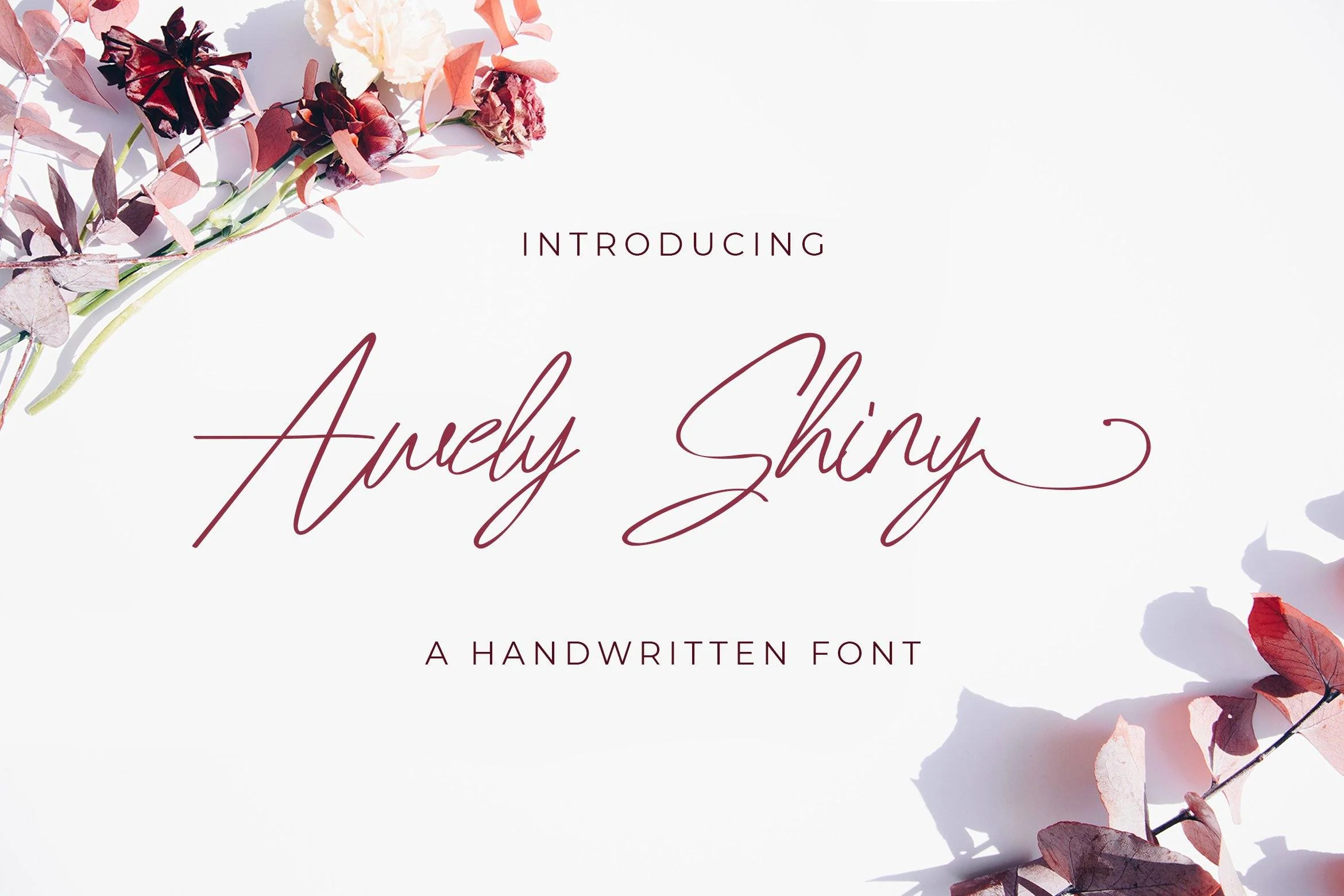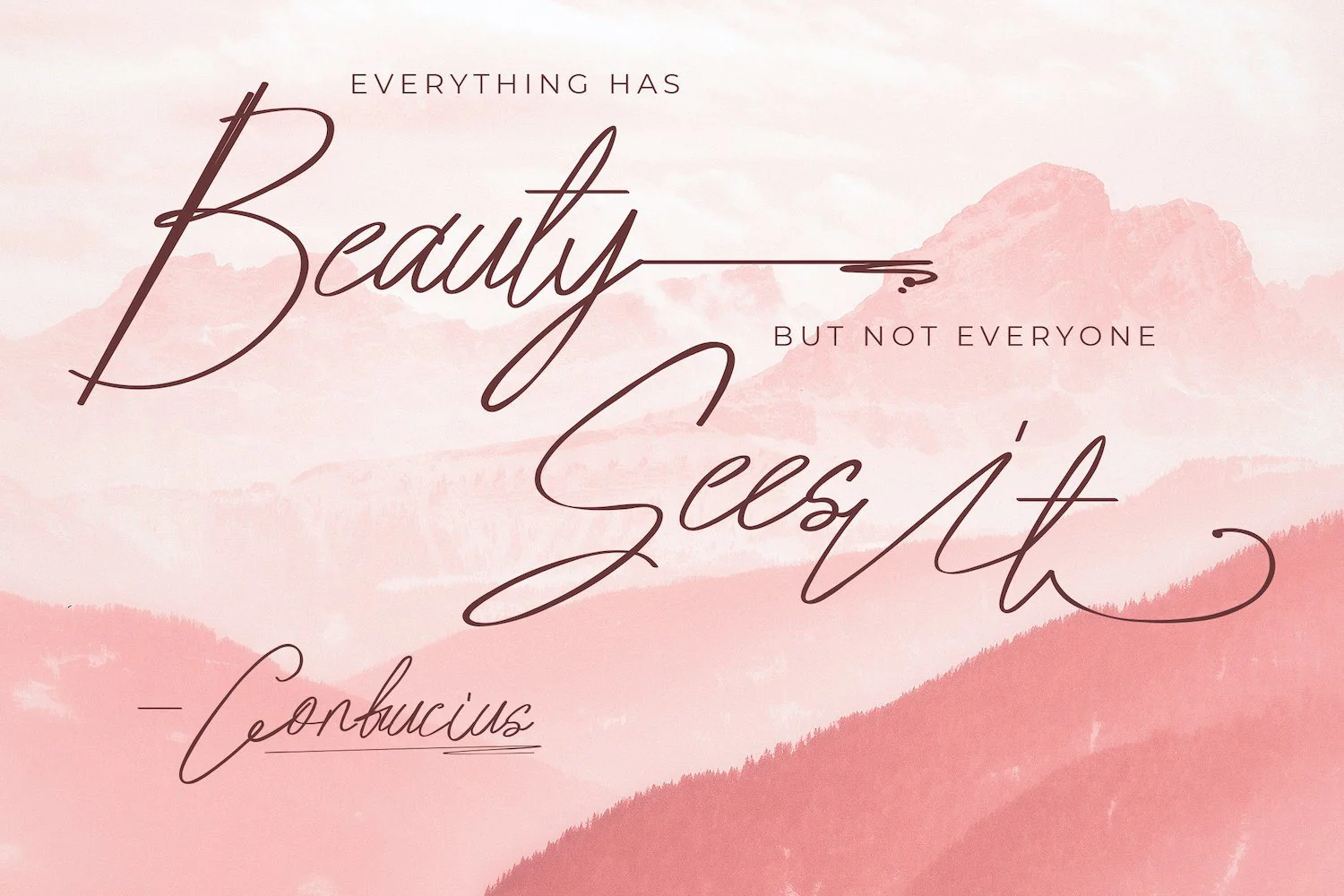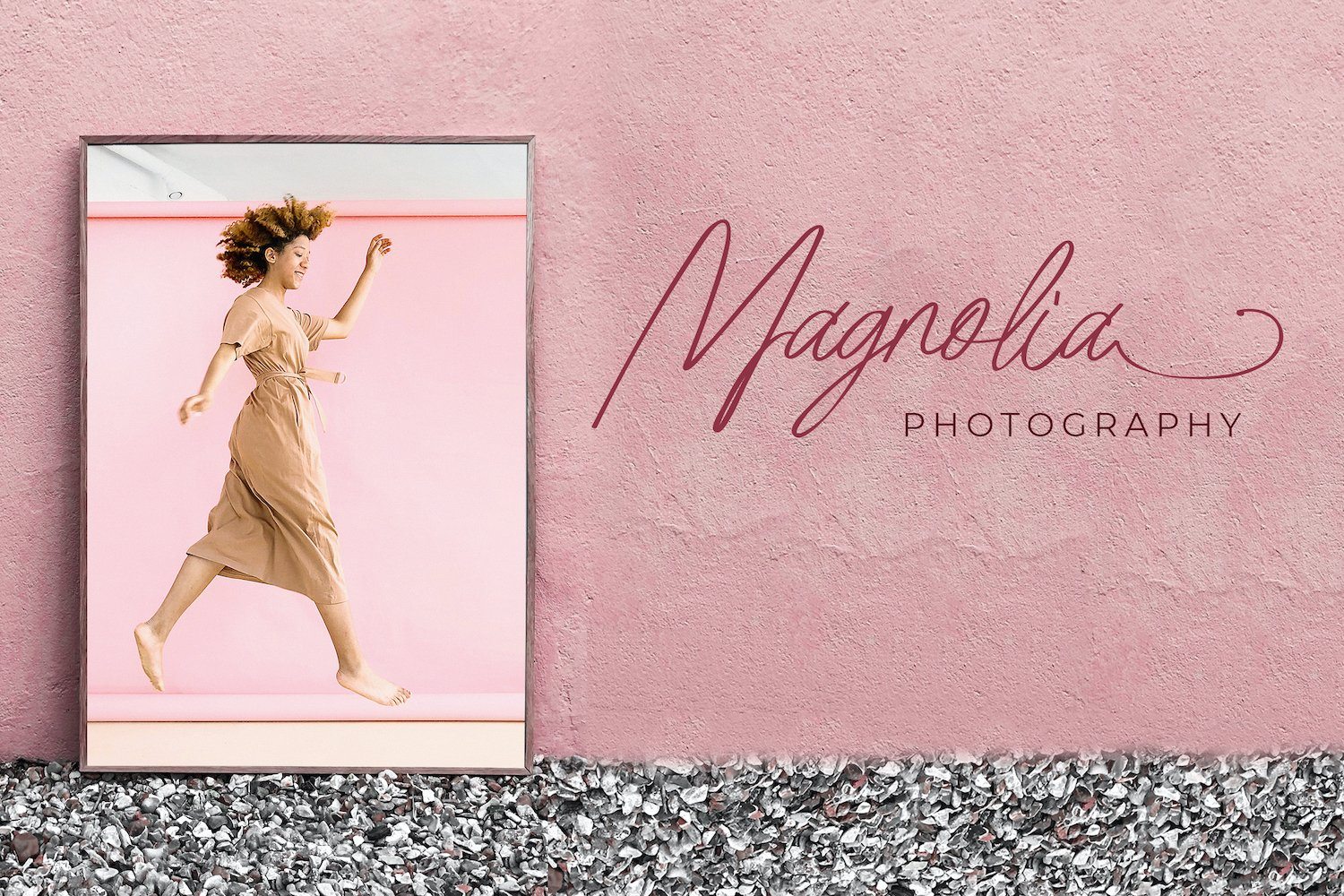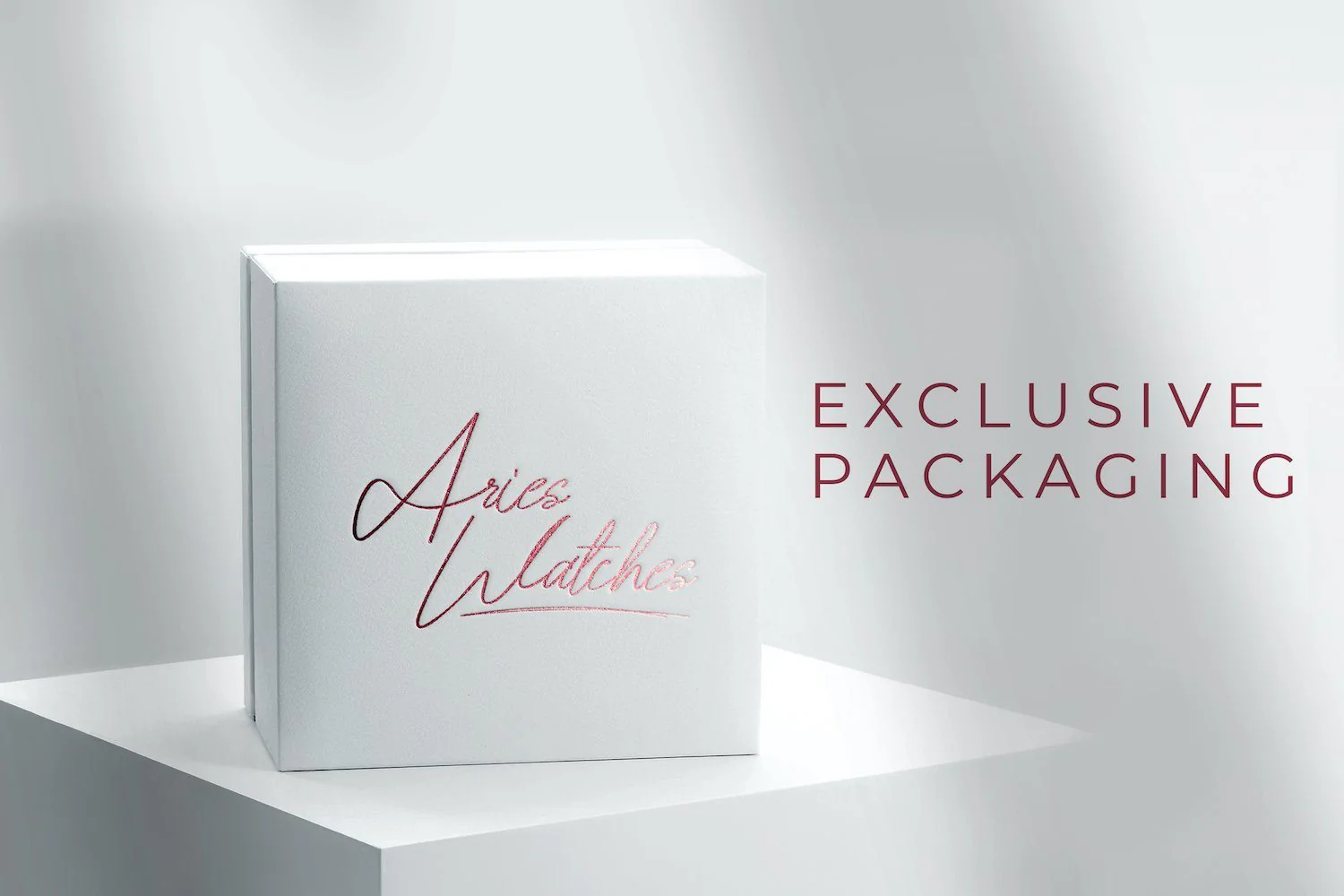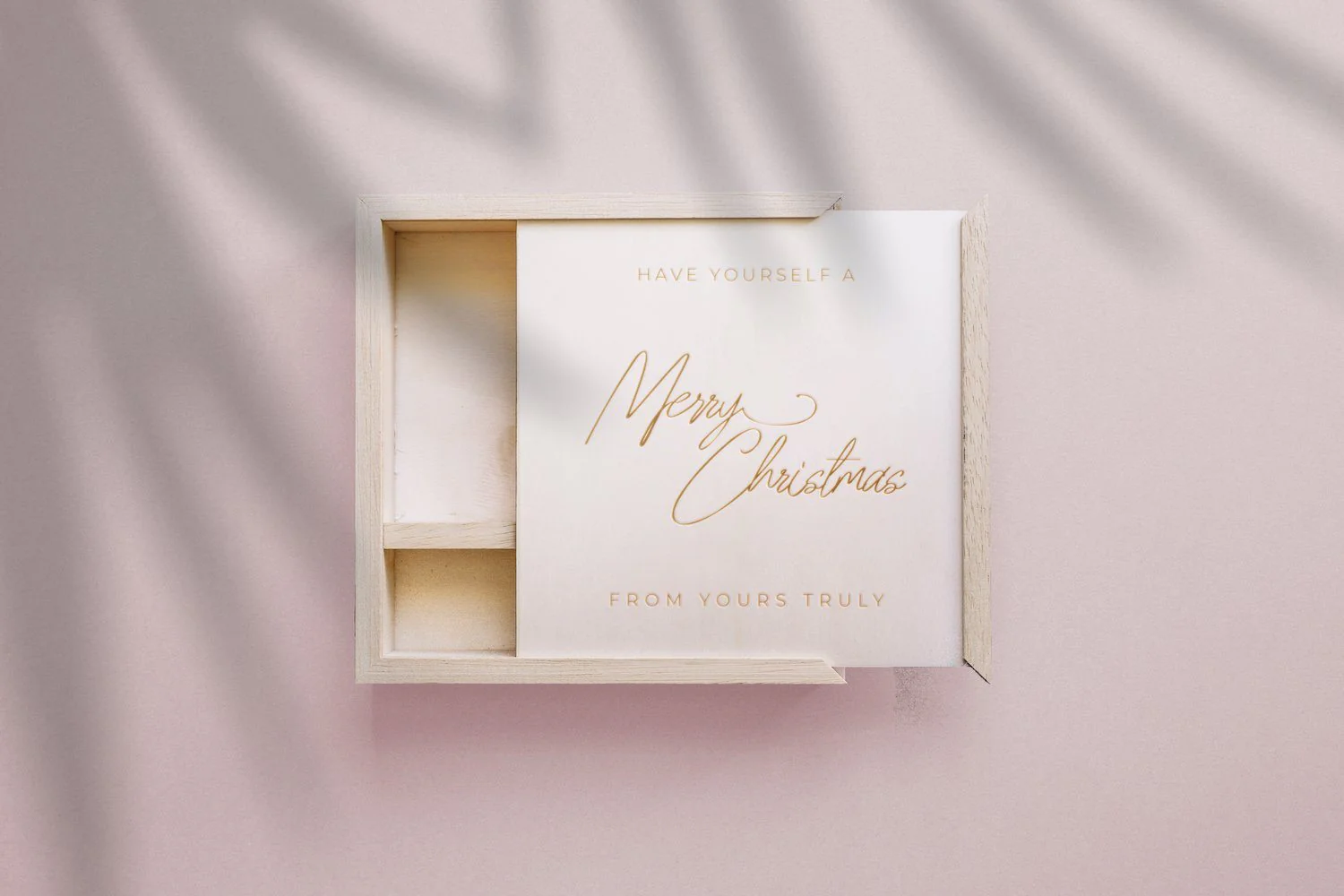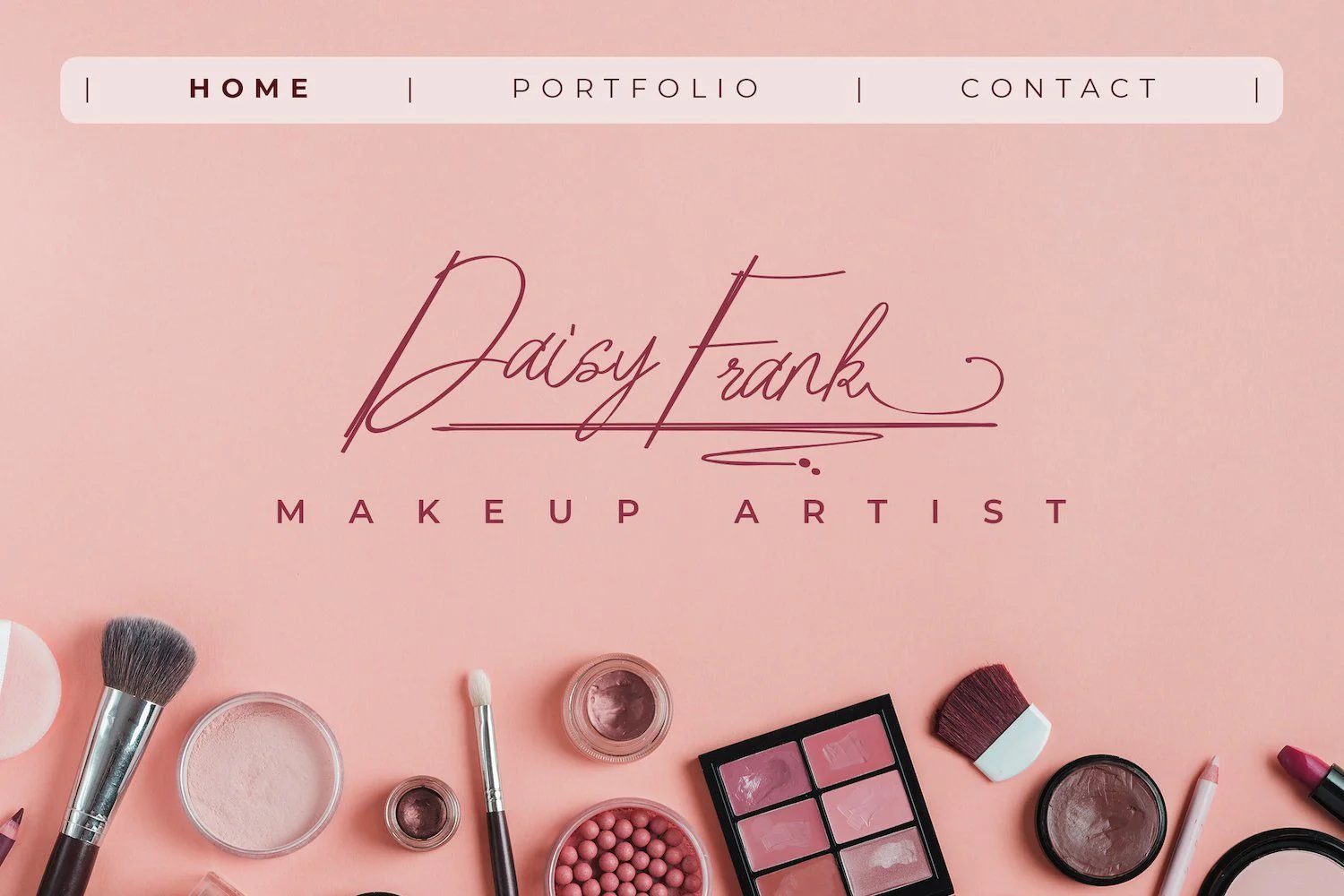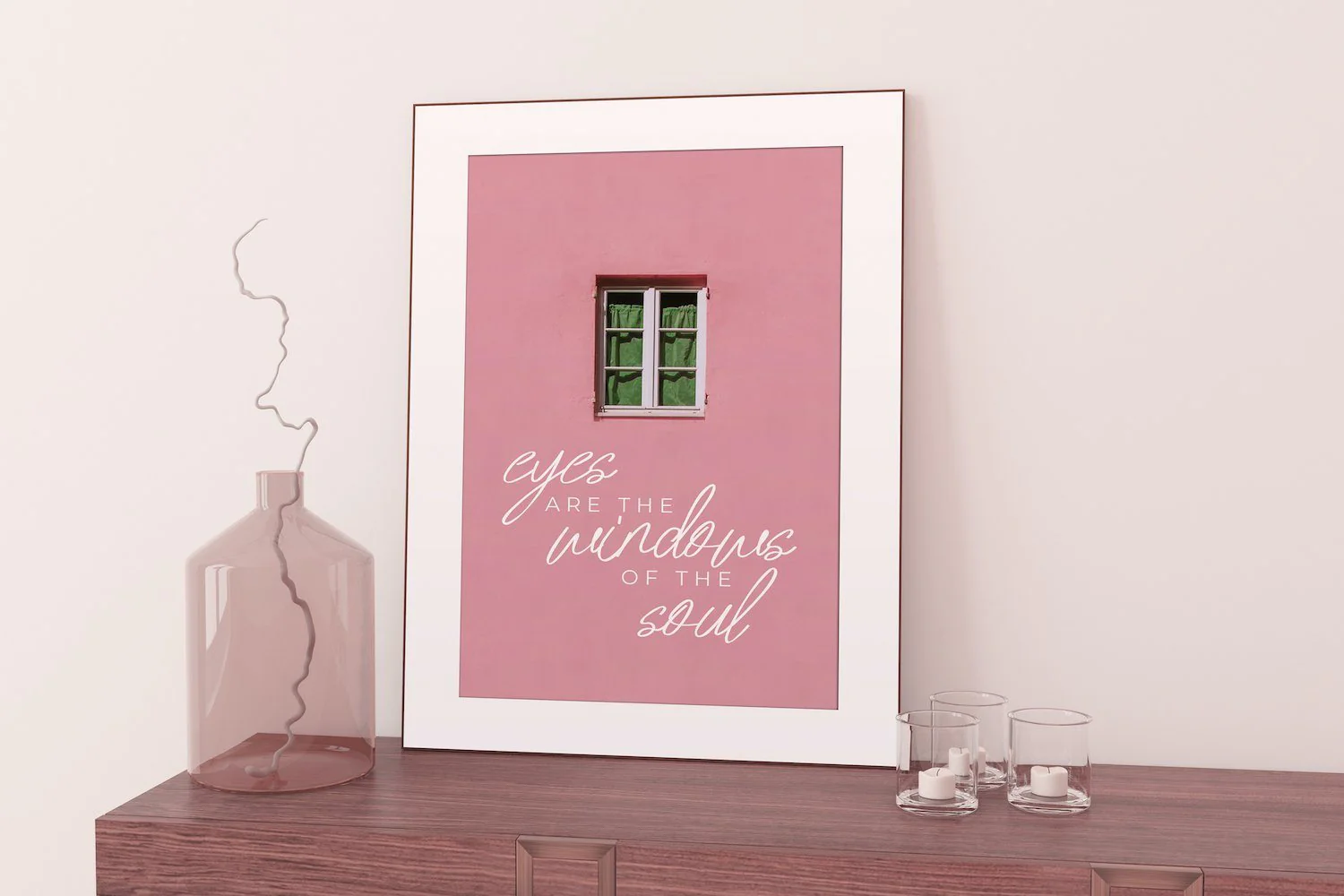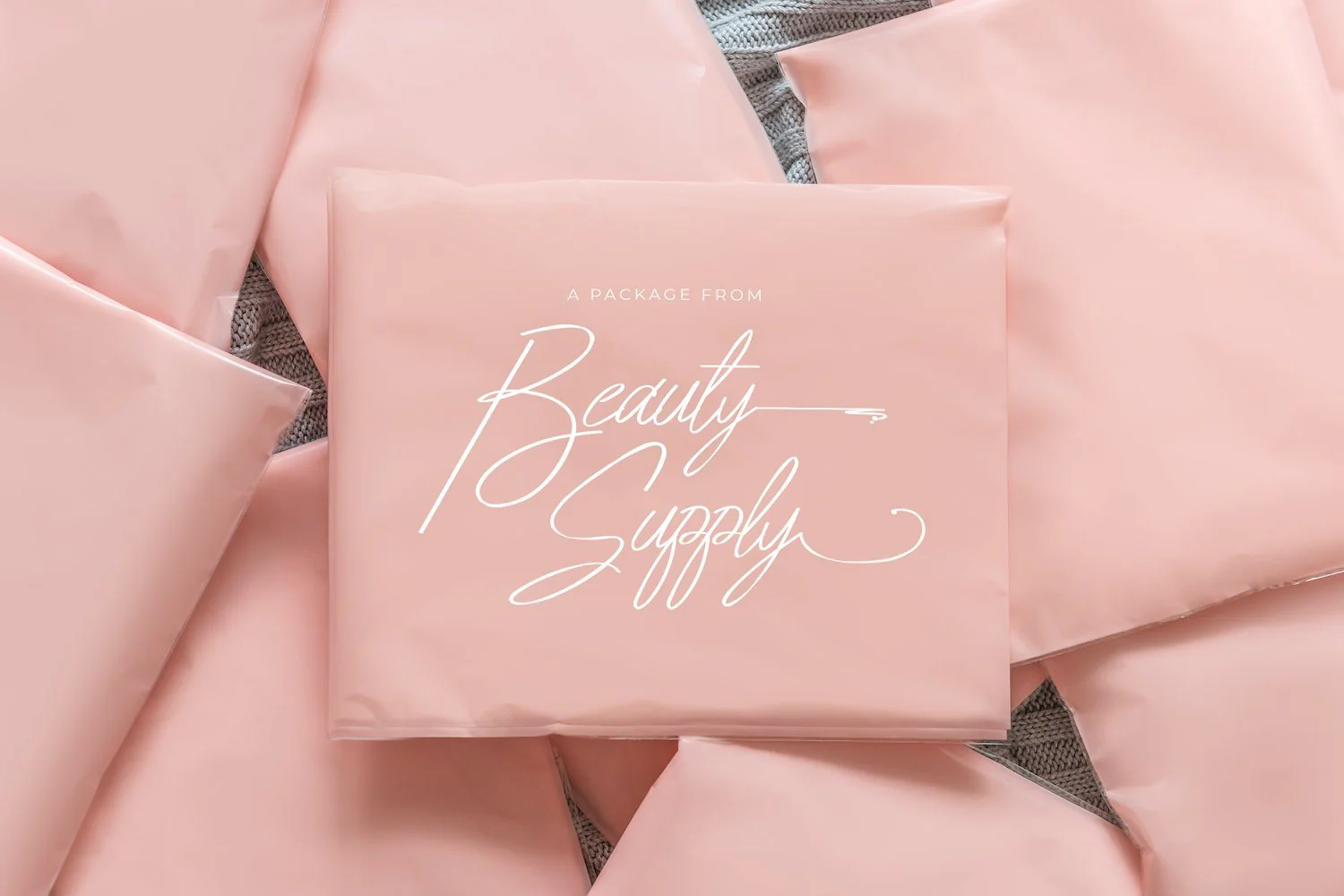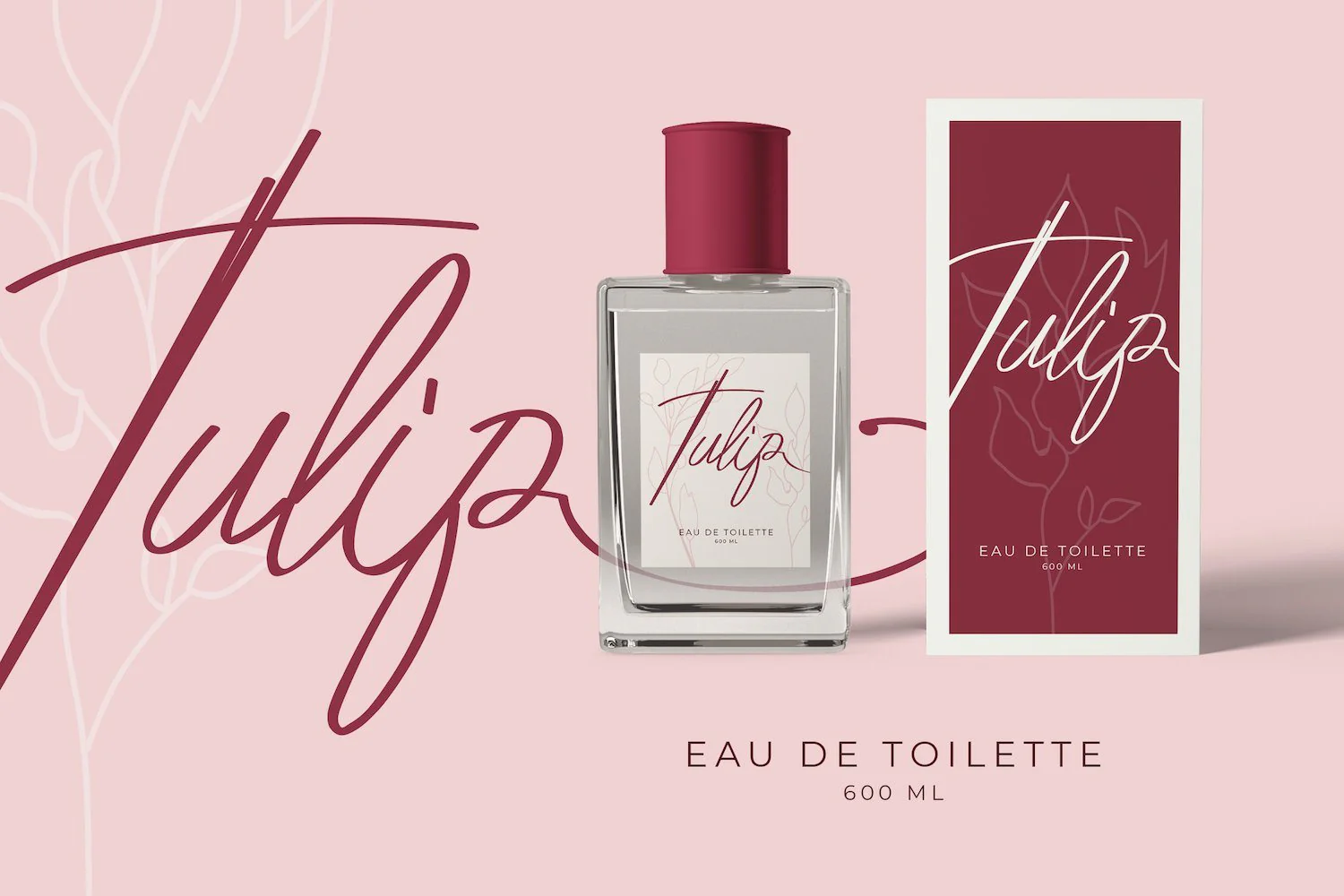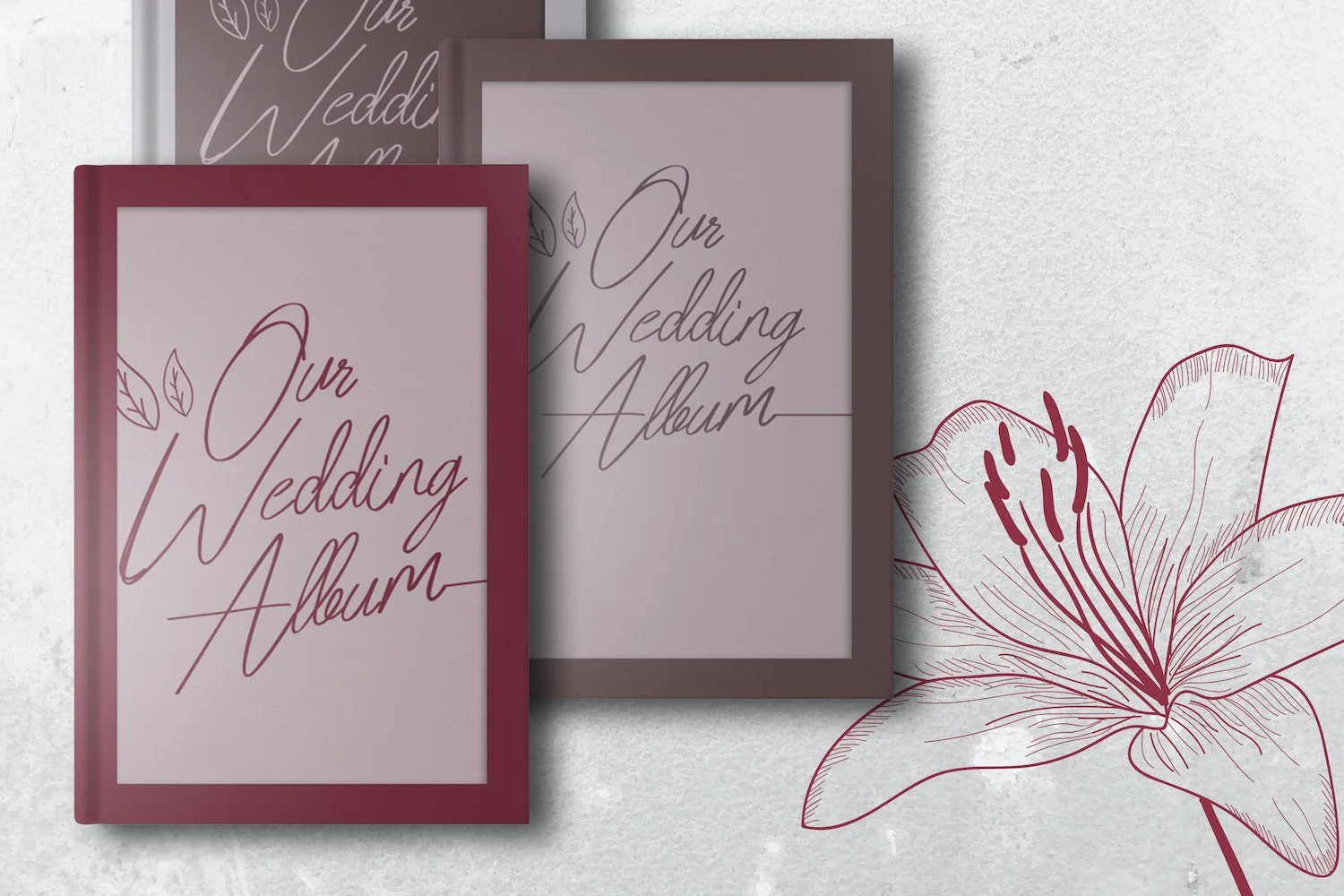
Awely Shiny - Handwritten Font
Introducing Awely Shiny - Handwritten Font
Awely Shiny is a magical handwritten font carefully created with a touch of elegance. This is a beautiful combination of timeless elegance and authentic calligraphy. It features an incredibly classic style, while still keeping a friendly feel. This font is the perfect font for making original and outstanding designs.
Introducing Awely Shiny - Handwritten Font
Awely Shiny is a magical handwritten font carefully created with a touch of elegance. This is a beautiful combination of timeless elegance and authentic calligraphy. It features an incredibly classic style, while still keeping a friendly feel. This font is the perfect font for making original and outstanding designs.